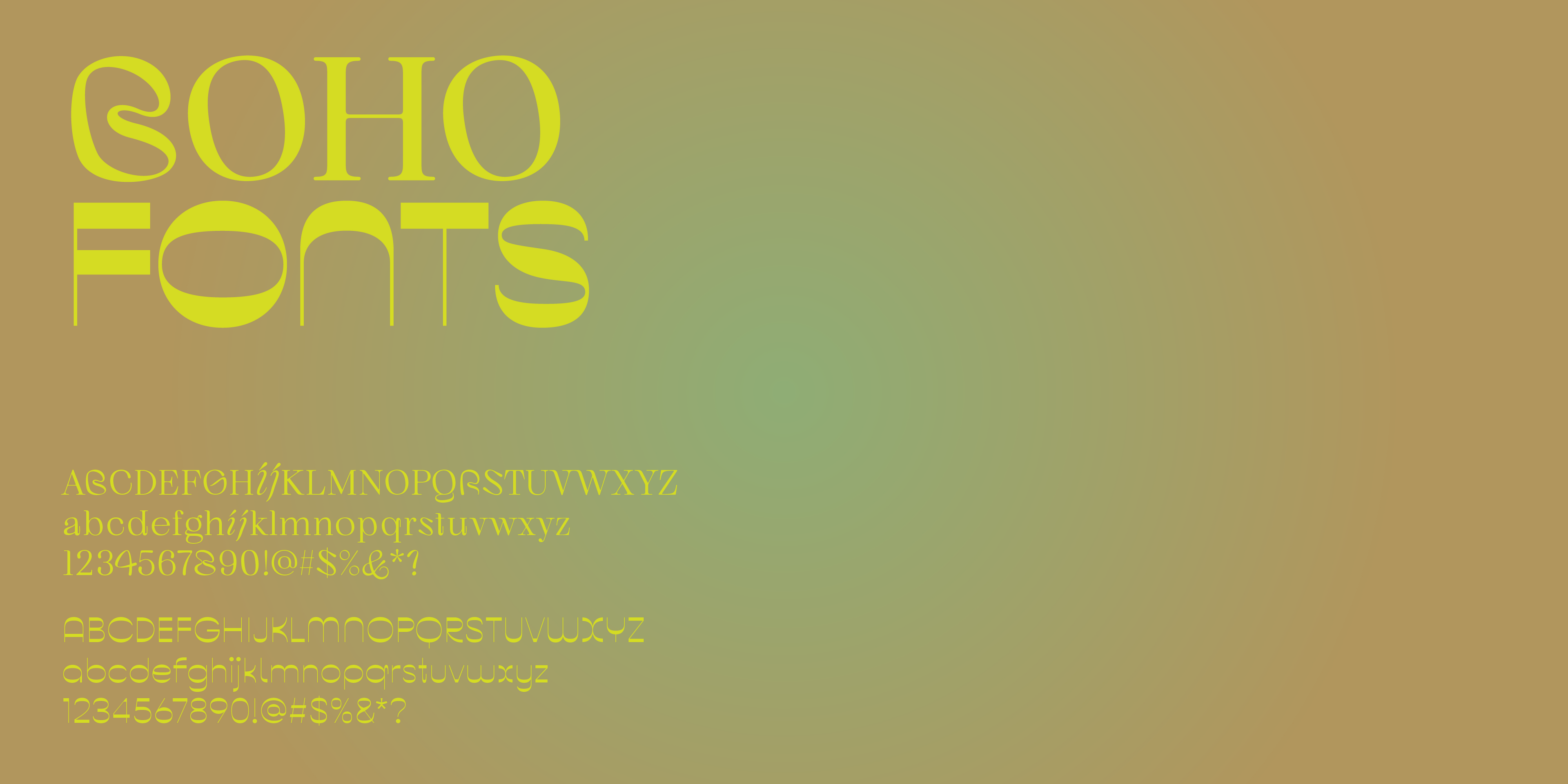
Check out these seven best fonts from our Boho collection for 2024. From simple hand-lettering to whimsical reverse-contrast fonts, this versatile selection adds a unique character to your designs.
For the Boho collection below, I’ve chosen only thinner font weights to create a flowing, light-hearted feel, but all seven typefaces come as font families with bolder weights, making them the best allrounders to keep in your font book.
Simple, sans-serif fonts for Boho designs
This style of typeface can be seen in startup tech logos, but Vole Light deserves to be used more often in other industries too. The unique feature of this font is its counters with brackets, the inner spaces of letters, and when they connect to the rest of the letter. For example, when you look at the letter w. Wherever two strokes meet, you’ll see that the empty spaces are slightly swollen, like ink or water filling in. In bolder weights of Vole, this turns the letter counters into caves; lighter weights make the text look more fluid and free-spirited.
Pout is a reverse-contrast font, meaning the boldness of the contrast is on the horizontal axis versus the vertical axis of typical contrast fonts. Medium is the font’s middleweight—pick a lighter weight for more elegance or a bolder weight to emphasize the reverse-contrast nature. Pout is simple, straightforward, fun, and a little whimsical in character. Its serifless design makes this typeface a modern Boho font, especially when paired with gold and metallic color palettes. Tip: This font has lots of alternative letters for versatile, unique designs. Check Pout out here.
A modern humanist contrast font is Roma. We see this style of font often for contemporary beauty branding. Still, it works well for Boho designs because it has a minimal back-to-the-roots feel, allowing product packshots, photography, and personal wedding branding to shine.
The Skay typeface has an all-uppercase design, making it suitable for display text. It looks like ink hand-lettering with its rounded strokes and curved letter shapes.
Lace Rounded is also a handwritten typeface, similar to Boho Berry font. The type has a casual and personal quality, using a monolinear stroke style to create simple but chic lettering. It’s a free font for download here.
Beautiful, free-spirited serif fonts
Kijs is a new typeface in this collection. It is genuinely free-spirited in nature when used in its lighter font weights. This serif font has pronounced, thin serifs with some letter spurs (tails in, for example, letters a, t, and u) pulling straight out and up. This design feature adds to a recognizably natural look. Another unique aspect that contributes to the typeface’s free, casual appearance that works excellent for unique display text is the cursiveness of letters i and j.
Soft Display Medium is a clean, modern serif typeface for headlines and logos. The font’s serifs are long and elegant, and the top right corners of the letter stems are rounded, giving the design a softer, gentle tone. The font in lighter styles reminds us of delicate elements in nature; the bolder styles add a feeling of “lush” and “organic” to any text design.